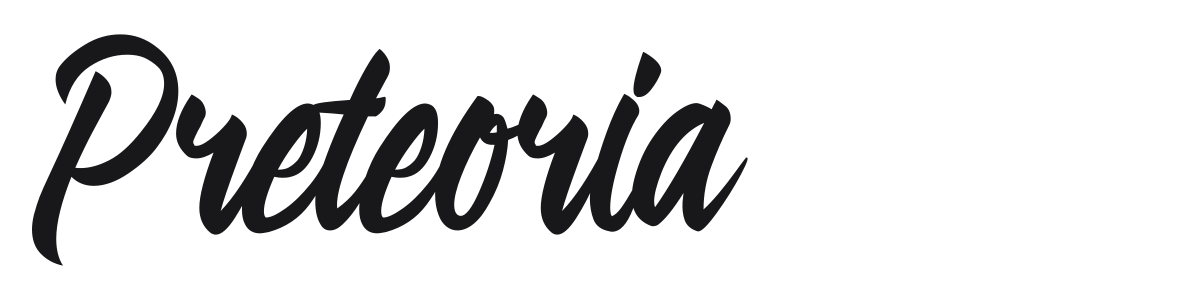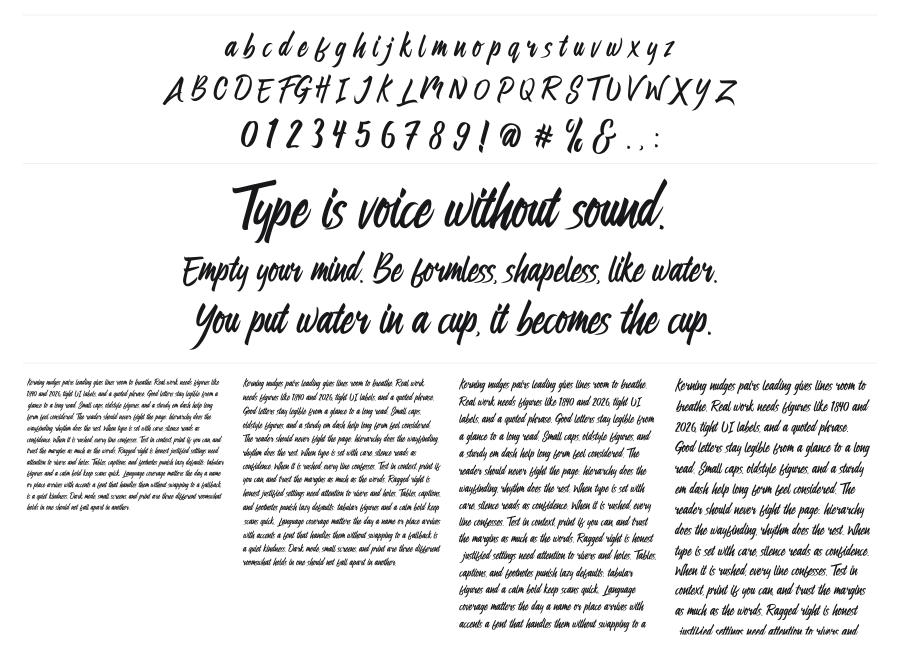
Preteoria
Preteoria is a bold brush script with the raw energy of hand-lettered signage, built on high stroke contrast and fluid, connected strokes. The generous slant and irregular ink-like texture give it an authentic handpainted feel that stands apart from overly polished script fonts. It works hard on posters, packaging, and anywhere a design needs immediate personality.